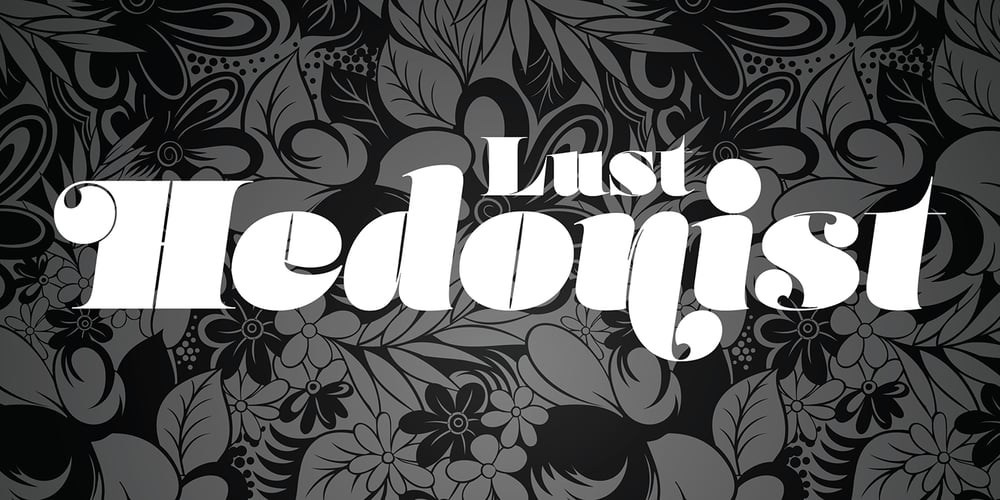
Lust Hedonist Font Family was designed by Neil Summerour and published by Positype. Lust Hedonist contains 4 styles and family package options. Check out the new Lust Pro & Lust Pro Didone to see how the series has grown and evolved. Confident, voluminous and versatile, Lust is an exercise in indulgence—an attempt to create something over the top and vastly useful. Lust Hedonist pushes contrast almost to the limit. The letterforms, especially the Script style are very self-indulgent for me, dare I say Hedonistic, and how I like to see letter masses taken to extreme contrast. The series unapologetically channels Herb Lubalin, but produced with a deliberate, contemporary twist. There is an intentional slyness infused in the letterforms—the extreme thick and thin lines flow effortlessly without becoming gratuitous. It’s always just enough, not too much. What makes the type series so appealing? The curves. When asked to describe the letterforms, most people unwittingly allude to the human form, using adjectives usually reserved for describing physical traits… creating all-too-familiar comparisons. Summerour has grown to accept this as unavoidable and reasonable given his acknowledgement of its influences and has provided nuances within the letterforms to accentuate that.